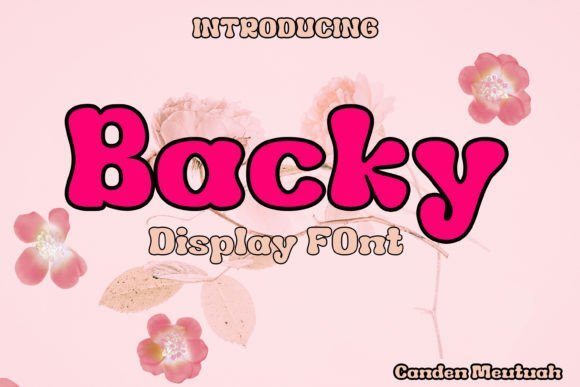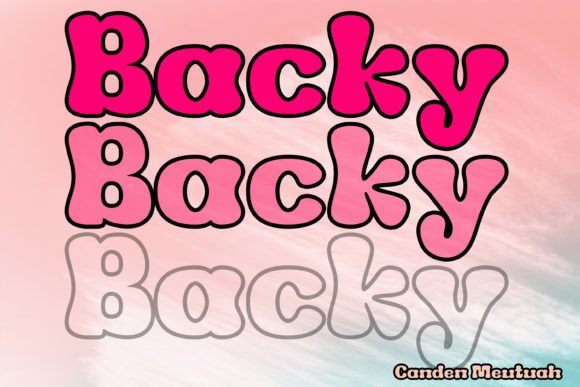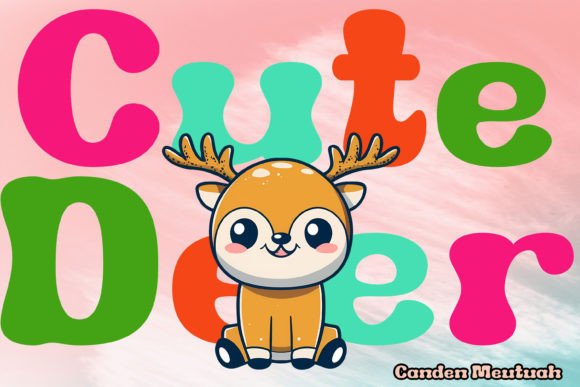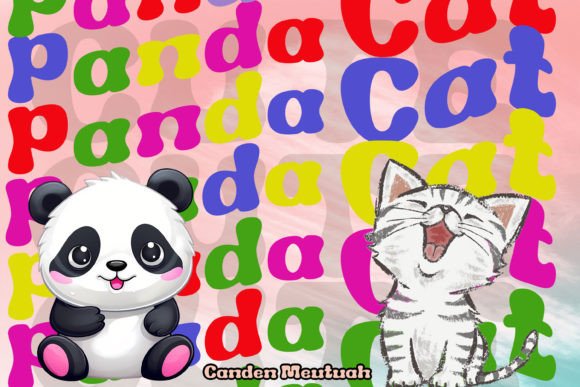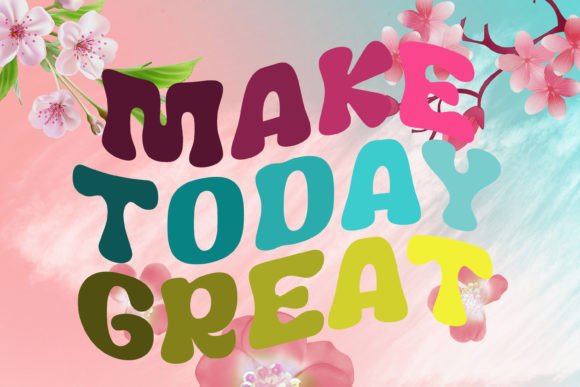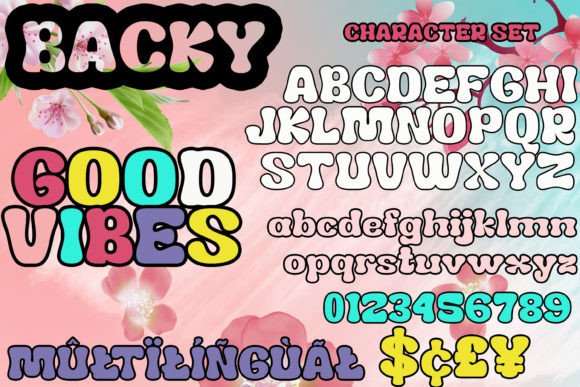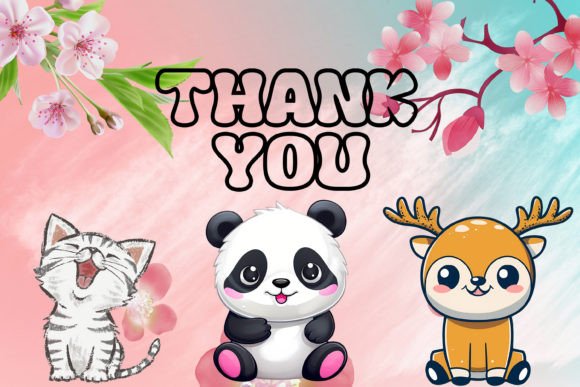
Discover the Perfect Display Font for Your Creative Projects
Have you ever stared at a blank page, trying to come up with the perfect headline or title for your design project? You know, that moment when you’re searching for the perfect font to make your idea stand out? For designers, this is a common challenge. But what if you had a font that could instantly elevate your design and make it pop?
Meet Backy Font, a simple, minimalist, and neat Display font designed to help you create stunning visual effects. Whether you’re working on an advertising campaign, a blog post, or a branding project, Backy Font is the perfect addition to your creative arsenal. Its versatility and clean design make it a valuable asset for designers looking to add a touch of sophistication to their work.
Key Features of Backy Font
- Unique Characteristics: Features a distinctive, modern design with a mix of rounded and angular elements, giving it a unique visual appeal.
Backy Font Review
As a designer, I’m always excited to explore new fonts and see how they can elevate my projects. Backy Font is a relatively new addition to the font family, and I was curious to see how it would perform.
- Unique and playful style: Backy Font has a distinctive look that’s perfect for adding a touch of whimsy to your designs.
- Wide range of characters: The font includes a comprehensive set of characters, including punctuation marks and symbols.
- High-quality rendering: The font renders beautifully across various devices and screen resolutions.
- Limited language support: Backy Font only includes Latin and Cyrillic character sets, which may be a limitation for designers working on projects that require other languages.
- Not ideal for body text: While Backy Font is perfect for headings and titles, it may not be the best choice for body text due to its relatively low readability.
Overall, I think Backy Font is a great addition to any designer’s toolkit. Its unique style and high-quality rendering make it a great choice for projects that require a touch of personality. However, its limitations in language support and readability for body text mean it’s not a one-size-fits-all solution.
Backy Font is perfect for creating playful and whimsical designs. It’s commonly used in children’s book illustrations, party invitations, and social media graphics.
For the most effective use of Backy Font, keep the design simple and bold. Use it in combination with bright colors and playful graphics to create a fun and eye-catching design.